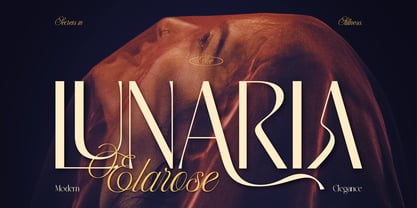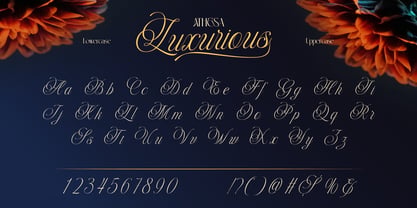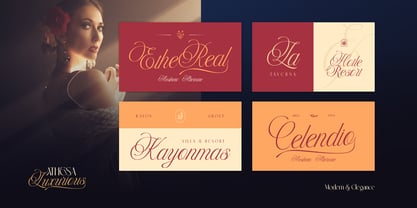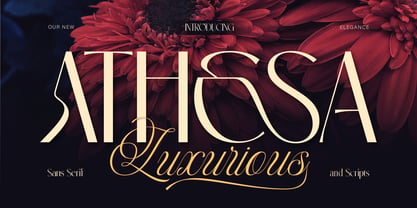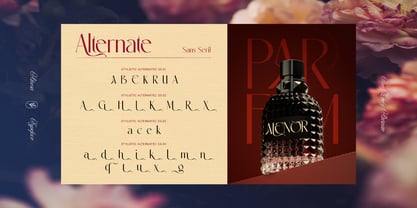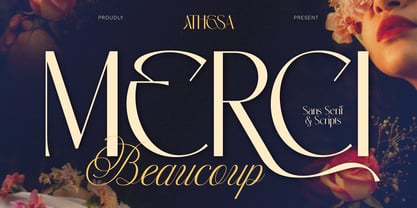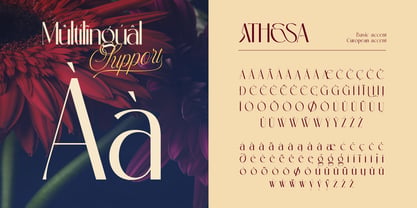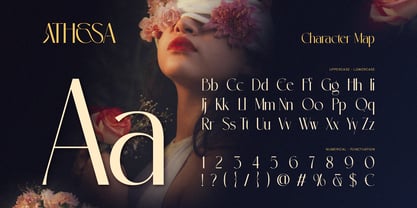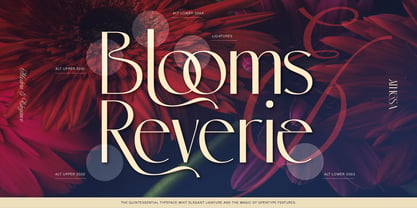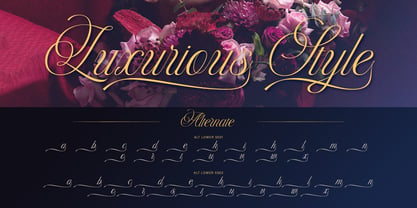
Athesa Luxurious
Die Schriftfamilie Athesa Luxurious wurde von Eric Kurniawan entworfen und von Burntilldead veröffentlicht. Athesa Luxurious enthält 2 Stile und Familienpaketoptionen.
Introducing Athesa Luxurious, our elegant, classy and glamour font duo. Where a modern sans serif meets a romantic, feminine script, creating a beautiful and harmonious visual contrast. This font is perfect for those who seeking luxury, elegance and timeless beuaty. Perfecr for branding for high-end fashion, wedding invitations, product packaging, or editorial designs, Athesa Luxurious offers the perfect balance of style and personality. With its stylish ligatures and alternates, every letter flows with purpose and poise.
Features:
• Uppercase & Lowercase
• Number
• Punctuation
• Alternates
• Ligatures
• Multilingual
Designer: Eric Kurniawan